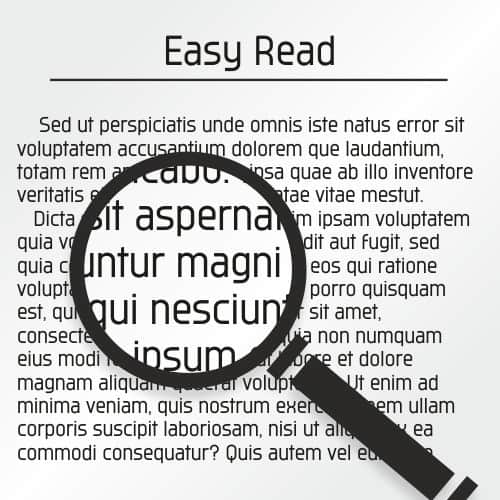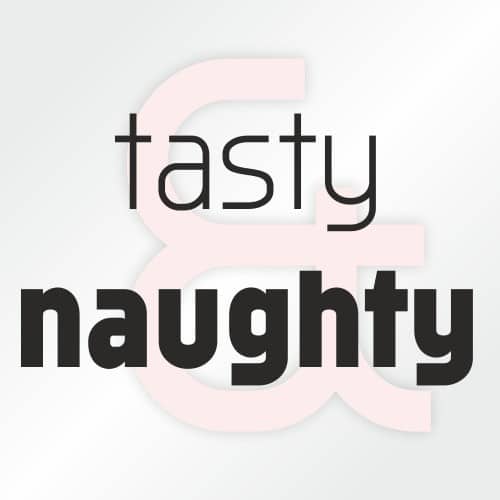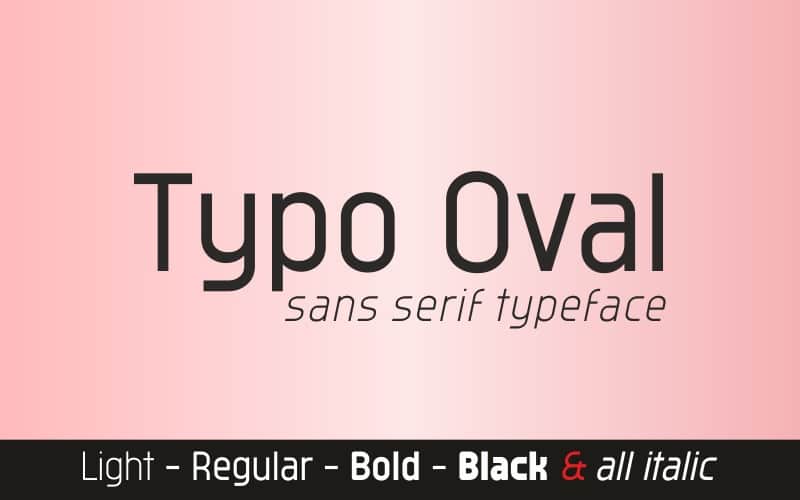
Typo Oval Sans Serif Font is a type family that can be elegant in its normal version, or very playful. It’s designed and shared by Studio Typo. It’s a classy sans serif typeface that is luxuriously bold and bold in style specifically for strong use, with a versatile touch. It is suitable for graphic design and screen use whatever your project is like branding, magazines, editorials, wedding invitations, logo design, posters, social media, and more!